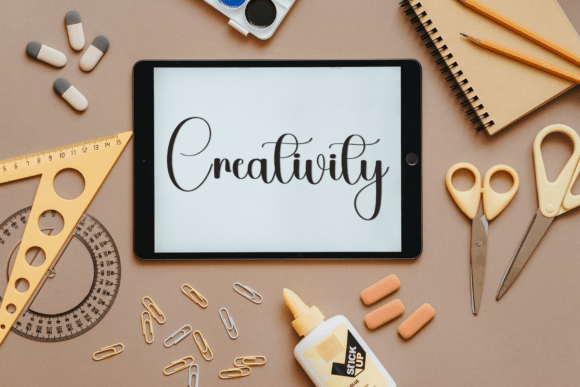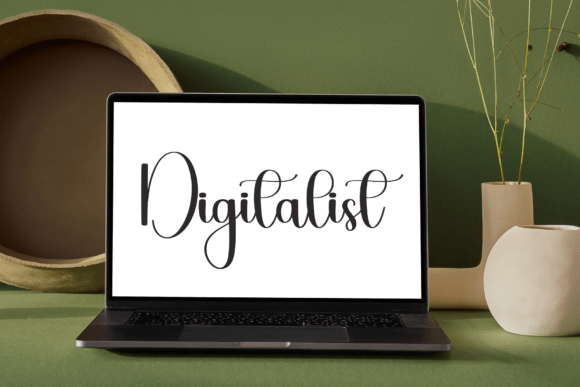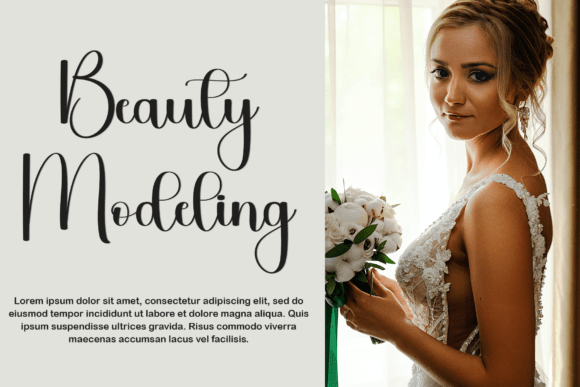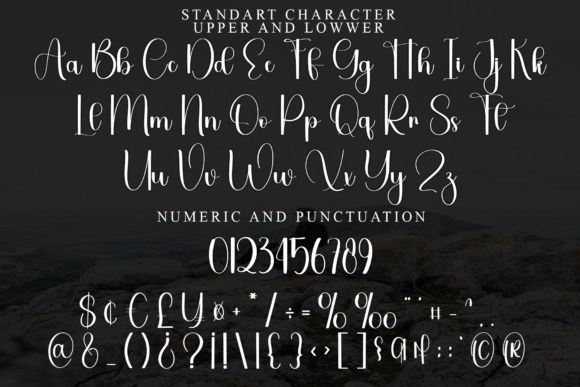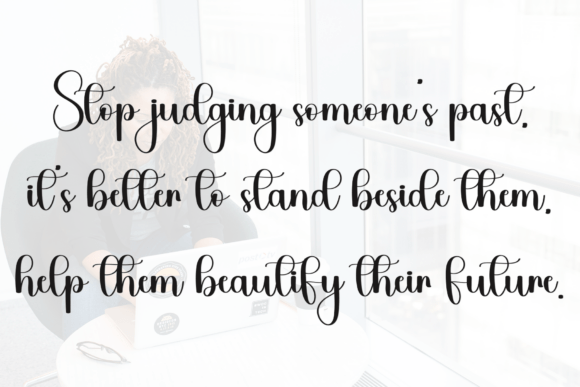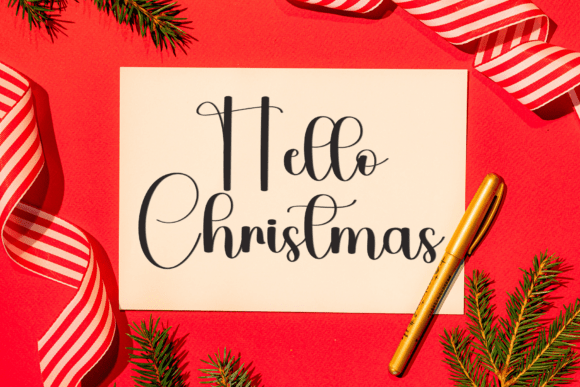
The Magic of Autumn Font: Elevate Your Holiday Designs
As a designer, I’ve had my fair share of holiday-themed projects. From crafting festive greeting cards to creating whimsical gift tags, I’ve learned that the right font can make all the difference. One font that has captured my heart is the Autumn Font – a merry and decorative typeface that embodies the spirit of the holiday season. In this article, I’ll share my experience with Autumn Font, its features, and how to make the most of it in your designs.
A Design Moment of Truth
I recall working on a project for a client who requested a custom holiday card design. The brief was simple: create something festive, fun, and engaging. As I began to work on the design, I realized that I was struggling to find the perfect font. That’s when I stumbled upon Autumn Font. Its whimsical flair and decorative elements instantly caught my attention, and I knew I had found the perfect fit.
So, what do I love about Autumn Font? Here are a few things that make it stand out:
• ✨ Festive and merry vibe: Autumn Font exudes a sense of joy and festivity, making it perfect for holiday-themed projects.
• ✅ Decorative elements: The font features beautiful decorative elements, such as swashes and ligatures, that add a touch of elegance to your designs.
• 💫 Whimsical flair: Autumn Font has a playful, whimsical quality that makes it perfect for creating eye-catching designs.
While Autumn Font is an excellent choice for holiday designs, there are a few quirks to keep in mind:
• 🤔 Glyph access: While the font is PUA encoded, which makes it easy to access glyphs and ligatures, some users may need to familiarize themselves with the font’s features to get the most out of it.
• ⚠️ Legibility at small sizes: As with many decorative fonts, Autumn Font may not be the best choice for body text or small font sizes, as it may become difficult to read.
The Story Behind Autumn Font
Autumn Font was designed by a team of creatives who wanted to capture the magic of the holiday season in a typeface. Inspired by traditional holiday decorations and vintage typography, they crafted a font that would bring joy and festivity to designs. The result is a beautiful, decorative font that embodies the spirit of the holidays.
Here are some common questions about Autumn Font:
What is Autumn Font? Autumn Font is a festive, decorative typeface designed to capture the spirit of the holiday season.
Is Autumn Font PUA encoded? Yes, Autumn Font is PUA encoded, making it easy to access glyphs and ligatures.